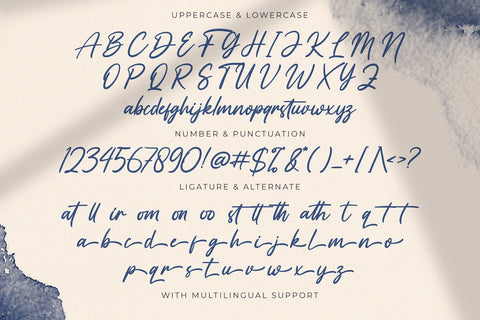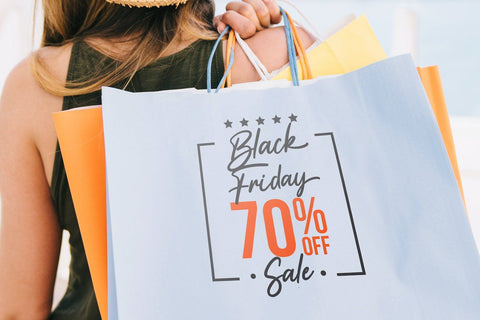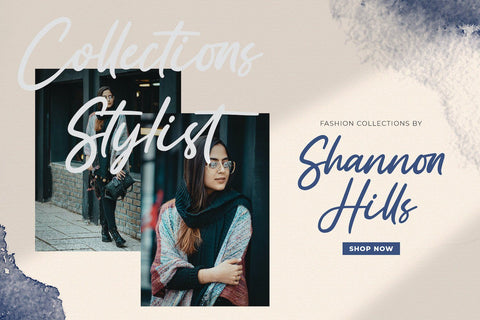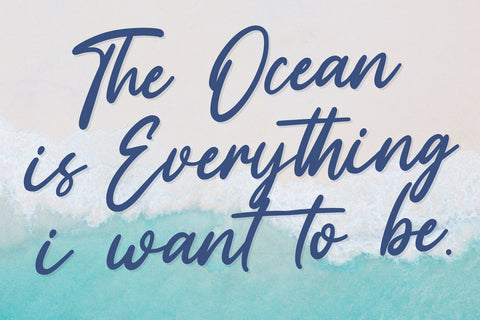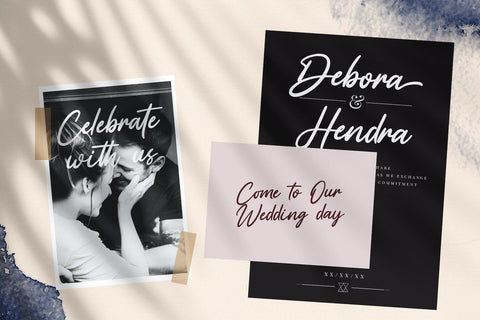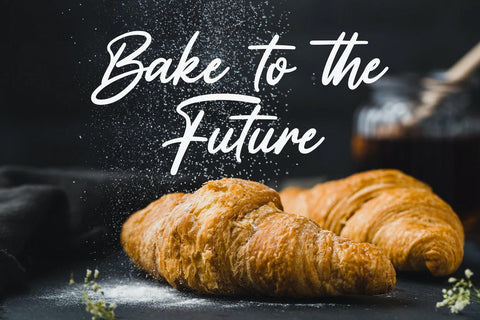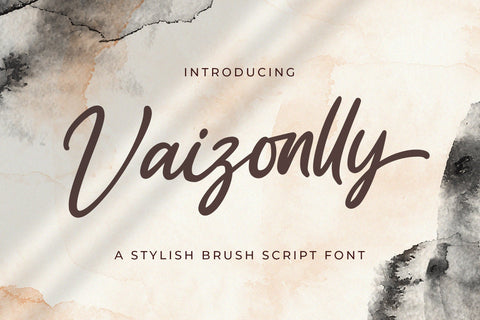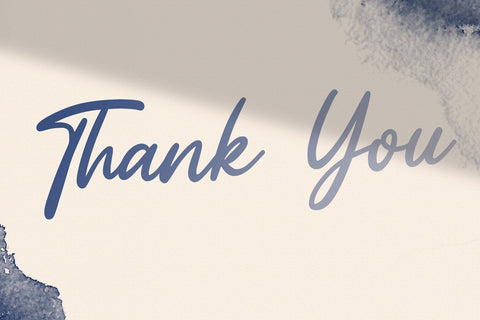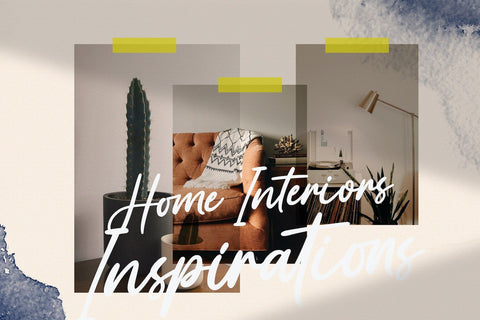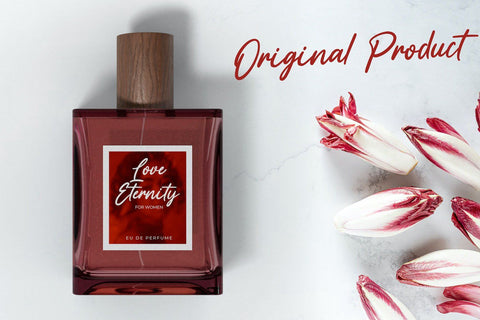
Vaizonlly - Bold Script Font
Introducing Vaizonlly - Bold Script Font
Vaizonlly is a flowing handwritten font, described by an elegant touch, perfect for your favorite projects. Fall in love with its incredibly distinct and timeless style and use it to create spectacular designs!
- Stylistic Alternates